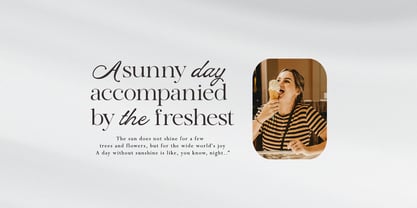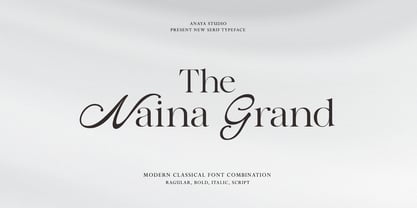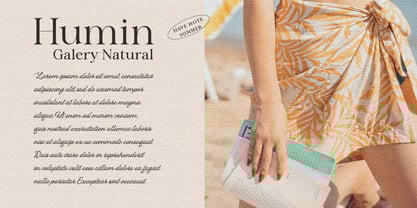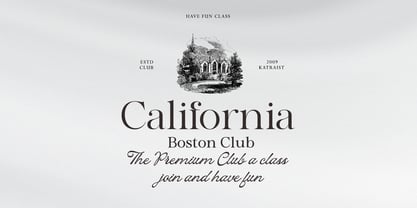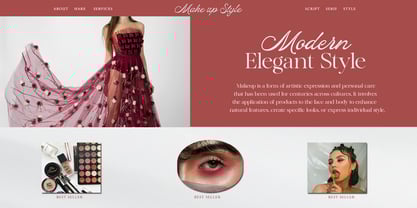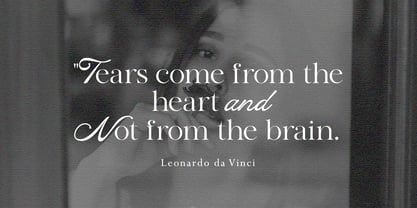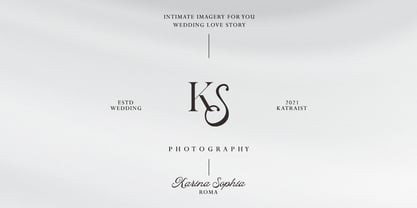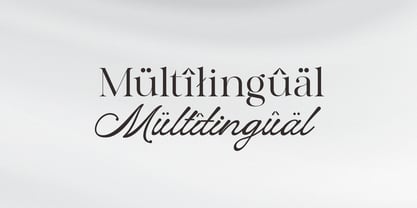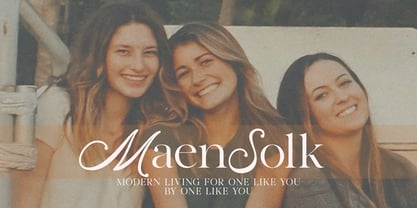
The Naina Grand
by Anaya Studio
The The Naina Grand Font Family was designed by Julizar Ismail and published by Anaya Studio. The Naina Grand contains 4 styles and family package options. More about this family
The Naina Grand is a brand new, unique & nostalgic typeface that I loved so much that I wanted to make it very personal, which is why Naina Grand is in the name. This font family includes 4 font options, regular, italic, bold, and Script. The main font is a serif, which in regular and italic looks cool, graceful & elegant, but in bold and Script it gets some extra curves so it also feels nostalgic and vintage at the same time.